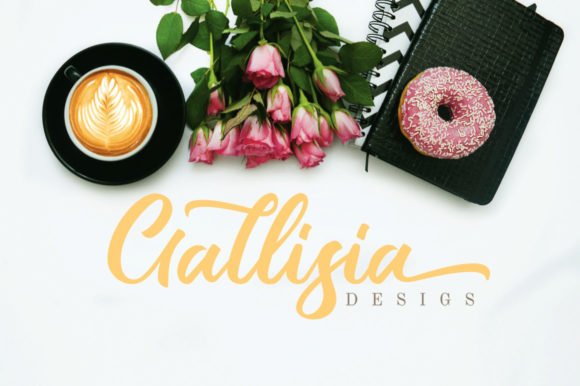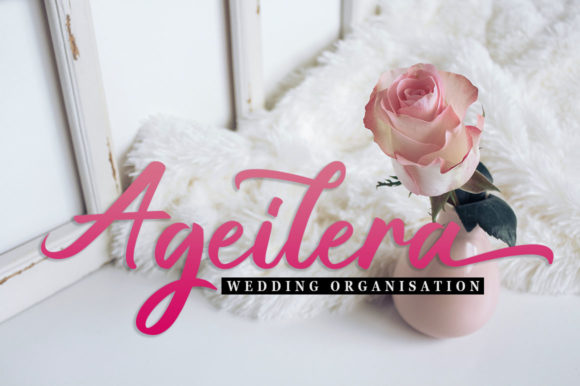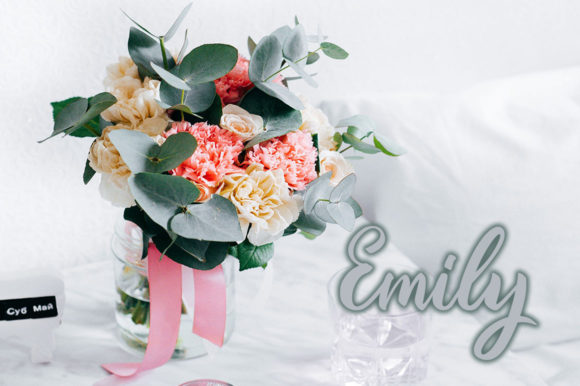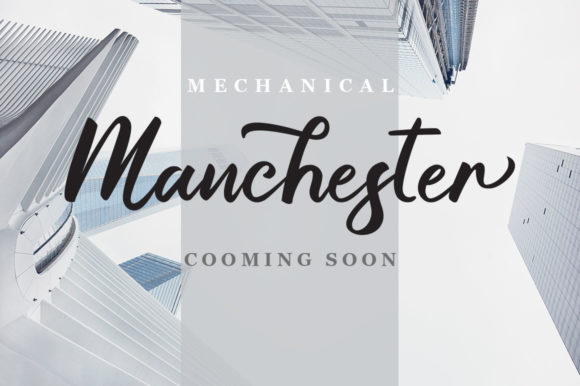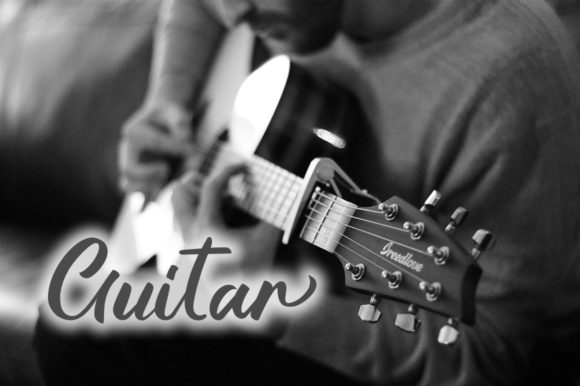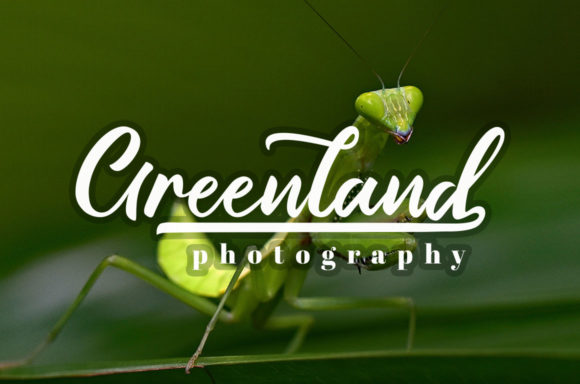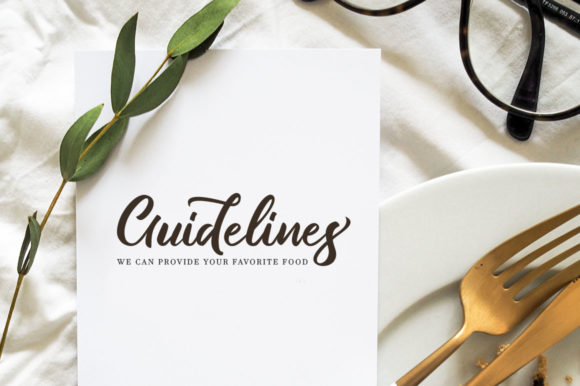
You’ve spent hours brainstorming, sketching, and perfecting your design. The ideas are flowing, and you’re on a roll. But then, it hits you – the perfect font to bring your vision to life. For designers, the search for the right font can be a daunting task, but what if I told you that there’s a font that’s sure to elevate your work and make it truly unforgettable?
Enter the Gallisia Script Font, a fresh and modern handwritten font that’s perfect for adding a personal touch to any project. Its unique style makes it a standout choice for designers looking to create authentic and eye-catching designs. With Gallisia Script Font, you can add a touch of sophistication and elegance to your work, making it truly special and memorable.
Whether you’re working on a branding project, creating a wedding invitation, or designing a logo, Gallisia Script Font is a valuable addition to any designer’s toolkit. Its versatility and unique style make it a must-have for any creative project, and we can’t wait to see what amazing designs you’ll create with it!
Gallisia Script Font Key Features
- Unique Characteristics: Features a beautiful, handwritten script style with elegant flourishes, making it perfect for creative and artistic applications.
Gallisia Script Font Review
As a designer, I’ve had the chance to work with Gallisia Script Font, and I must say, it’s a lovely addition to any typography enthusiast’s collection.
- ✨ Elegant and refined feel: Gallisia Script Font exudes a sophisticated charm that’s perfect for luxury brands, high-end fashion, or elegant invitations.
- ✨ Beautiful connections: The smooth, flowing connections between letters make it a joy to read and a delight to design with.
- ✨ Good versatility: While it’s a script font, it works well for both print and digital applications, from business cards to website headers.
- ⚠️ Limited font sizes: At very small font sizes, some of the letters can become difficult to read, especially for those with vision impairments.
- ⚠️ Limited character set: While it’s not a major issue, some characters may not be included in the standard font set, which can lead to issues with certain languages or characters.
Gallisia Script Font is a beautiful addition to any typography enthusiast’s collection. While it has some limitations, its elegant feel and beautiful connections make it a joy to work with. I’d recommend it for high-end projects, but be mindful of font sizes and character sets.
The Gallisia Script Font is ideal for:
- Quotations and inspirational graphics
- Editorial and creative writing projects
For optimal results, pair Gallisia Script with a clean, modern sans-serif font and use a limited color palette to create a cohesive look.
Alternatives to Gallisia Script Font for Designers
Carolyna Pro is a modern script font that combines elegance and sophistication. It’s perfect for creating high-end branding, luxury packaging, and stylish invitations. Compared to Gallisia Script Font, Carolyna Pro has a more refined and sleek look, making it ideal for contemporary designs.
Alex Brush is a handwritten script font that exudes warmth and personality. It’s great for creating casual, friendly branding, and it works well for food labels, craft beer labels, and children’s products. Unlike Gallisia Script Font, Alex Brush has a more relaxed and approachable feel, making it suitable for everyday designs.